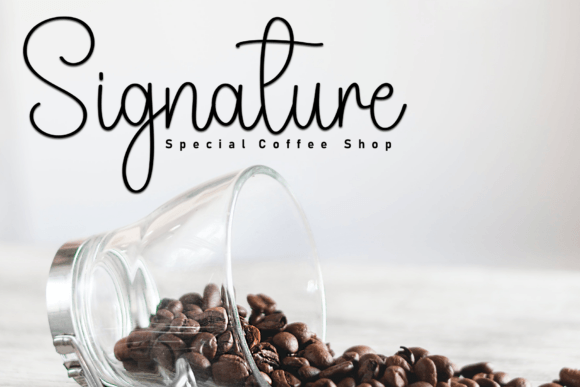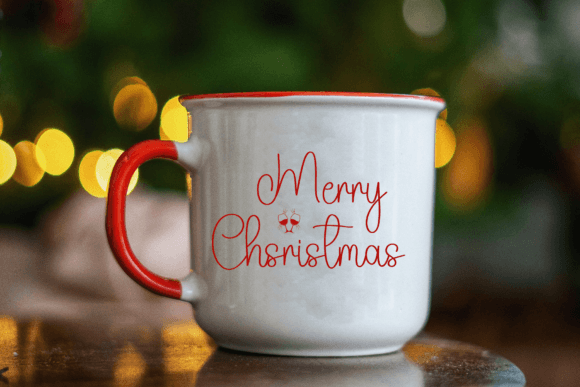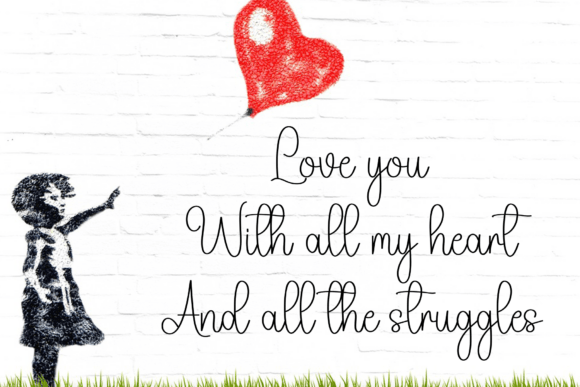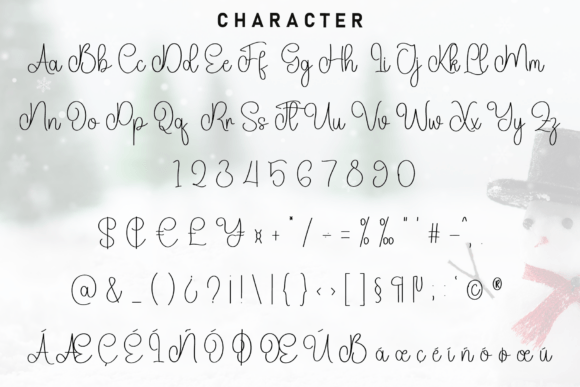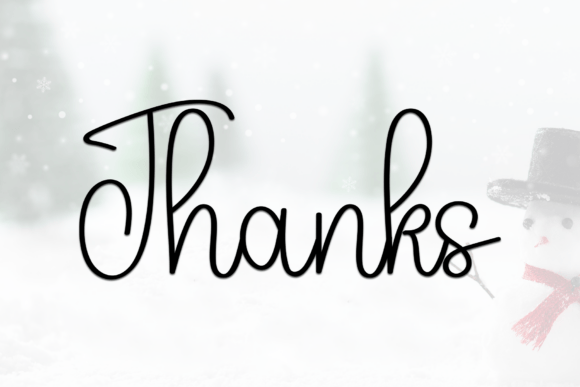
Introduction to Hello Snowman Font
Hello Snowman is a delicate and elegant handwritten font.
Its distinct and well balanced letters make this font a masterpiece Fall in love with its incredibly versatile style and use it to create spectacular designs.